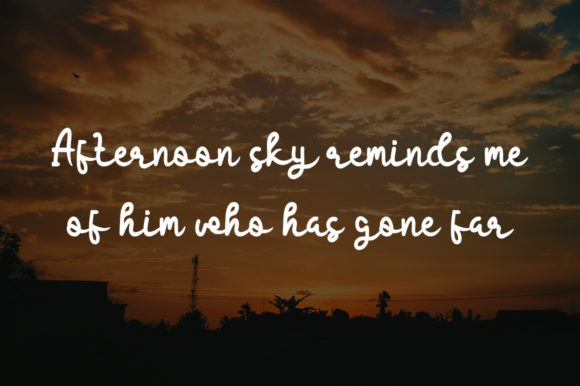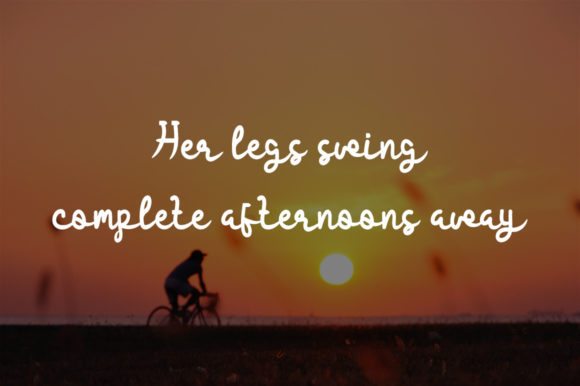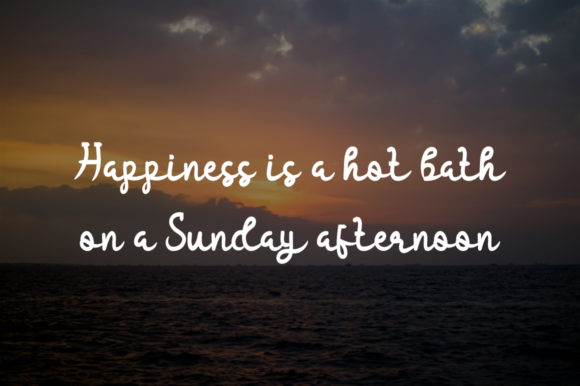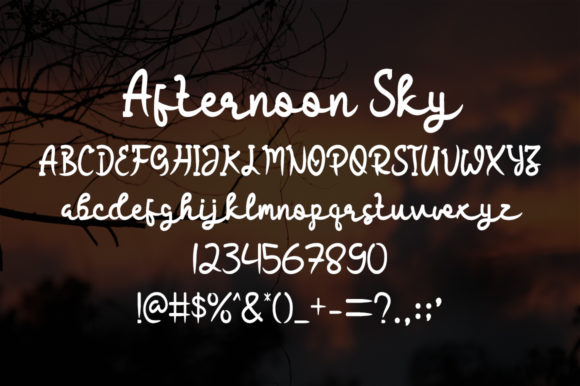
The Afternoon Sky Font: A Casual and Friendly Companion for Your Designs
I’ll never forget the moment I stumbled upon the perfect font for a project. I was working on a handmade card for a friend’s birthday, and I just couldn’t seem to find the right fit. The design was almost done, but the font I was using just wasn’t giving me the warm and fuzzy feeling I wanted to convey. That’s when I discovered the Afternoon Sky font. It was like a breath of fresh air – casual, friendly, and perfectly imperfect. In this article, I’ll share my experience with this beautiful font, its features, and how you can make the most of it in your designs.
An Honest Review of Afternoon Sky Font
• ✨ Simple and easy to use: The Afternoon Sky font is a handwritten font that’s effortless to work with, even for those who aren’t font experts.
• ✅ Beautifully imperfect: The font’s casual nature makes it perfect for creating handmade or crafty designs that feel personal and unique.
• 🌞 Friendly vibe: The Afternoon Sky font exudes warmth and approachability, making it ideal for projects that require a personal touch.
While the Afternoon Sky font is amazing, there are a few things to keep in mind:
• ⚠️ Limited formal use: Due to its casual nature, this font might not be the best choice for formal or professional projects that require a more serious tone.
• 🤔 Limited character set: As with any font, there might be limitations to the character set, so be sure to check if it includes all the characters you need.
3. Experiment with OpenType features, such as stylistic alternates, to add some personality to your text.
3. Explore the font’s glyphs and OpenType features to add some visual interest to your design.
The Story Behind Afternoon Sky Font
The Afternoon Sky font was designed with the intention of creating a friendly and approachable typeface. The designer wanted to capture the feeling of a warm summer afternoon, where everything feels relaxed and carefree. The result is a font that’s perfect for crafty designs, handmade cards, and other creative projects that require a personal touch.
Q: What is the Afternoon Sky font best used for?
A: The Afternoon Sky font is ideal for crafty designs, handmade cards, and other creative projects that require a personal touch.
Q: Is the Afternoon Sky font suitable for formal projects?
A: Due to its casual nature, the Afternoon Sky font might not be the best choice for formal or professional projects that require a more serious tone.